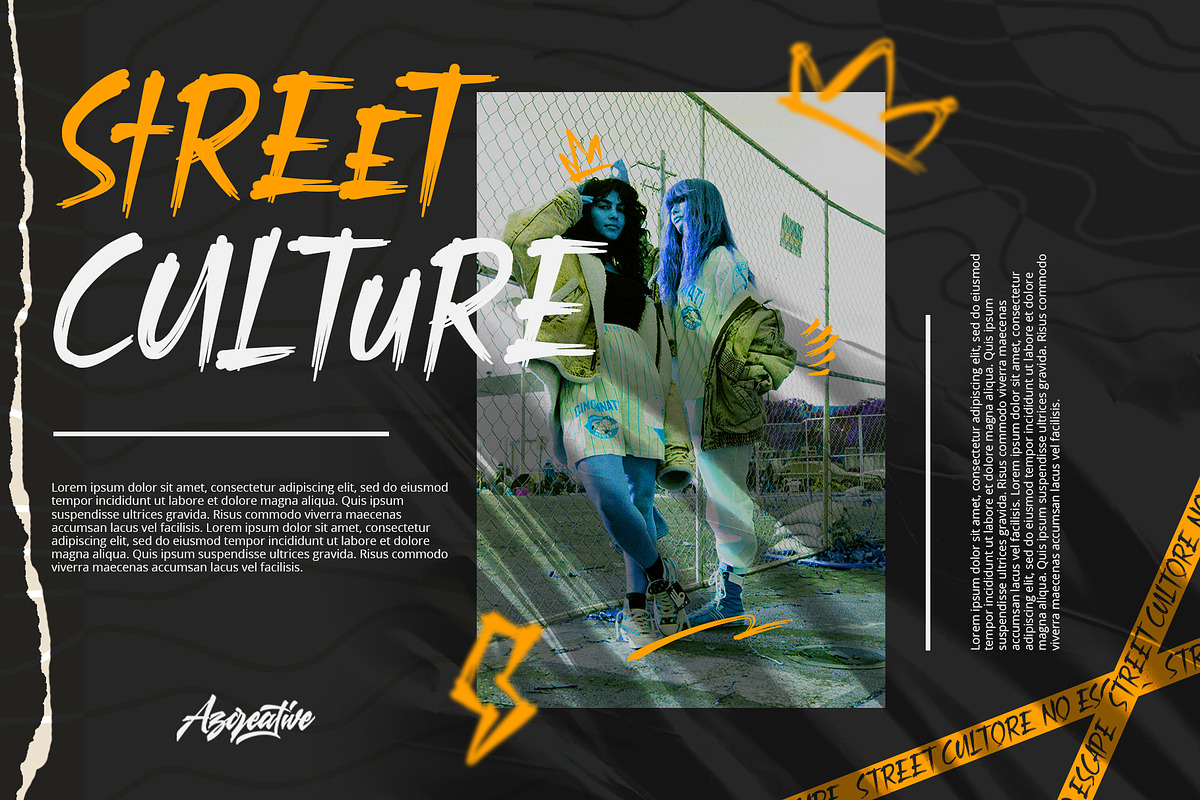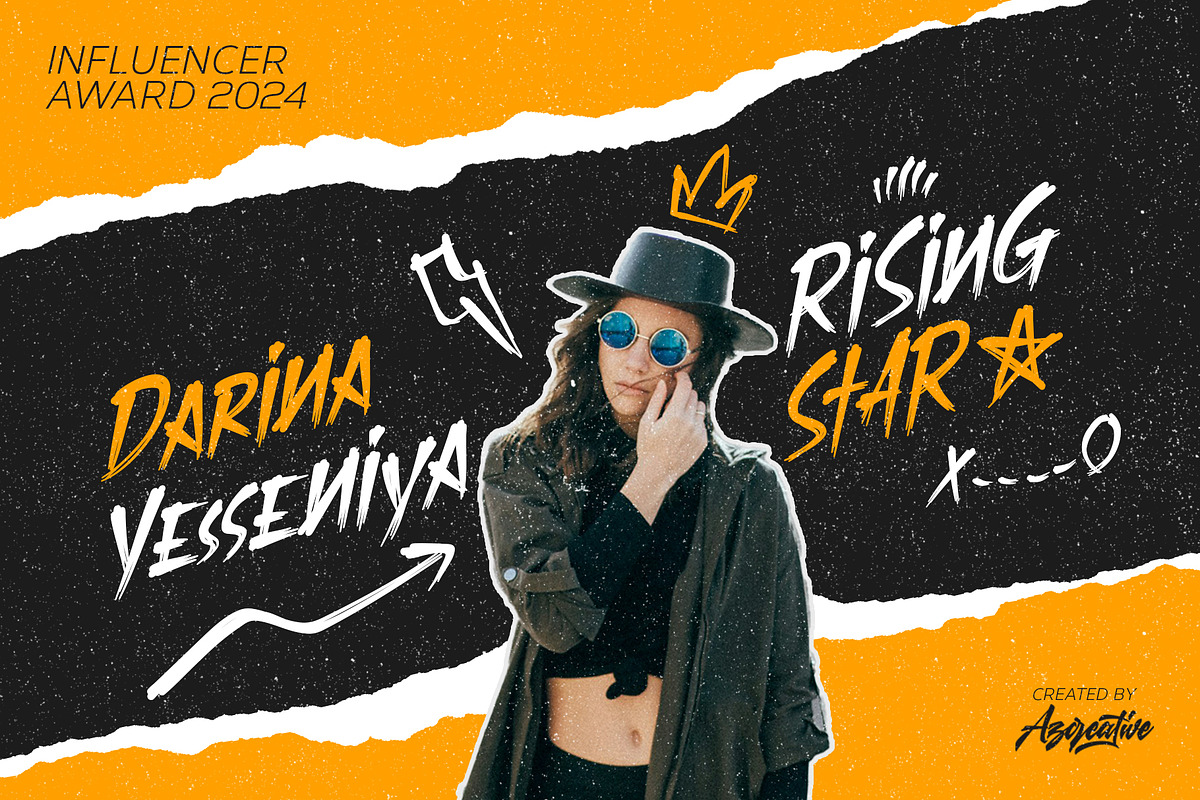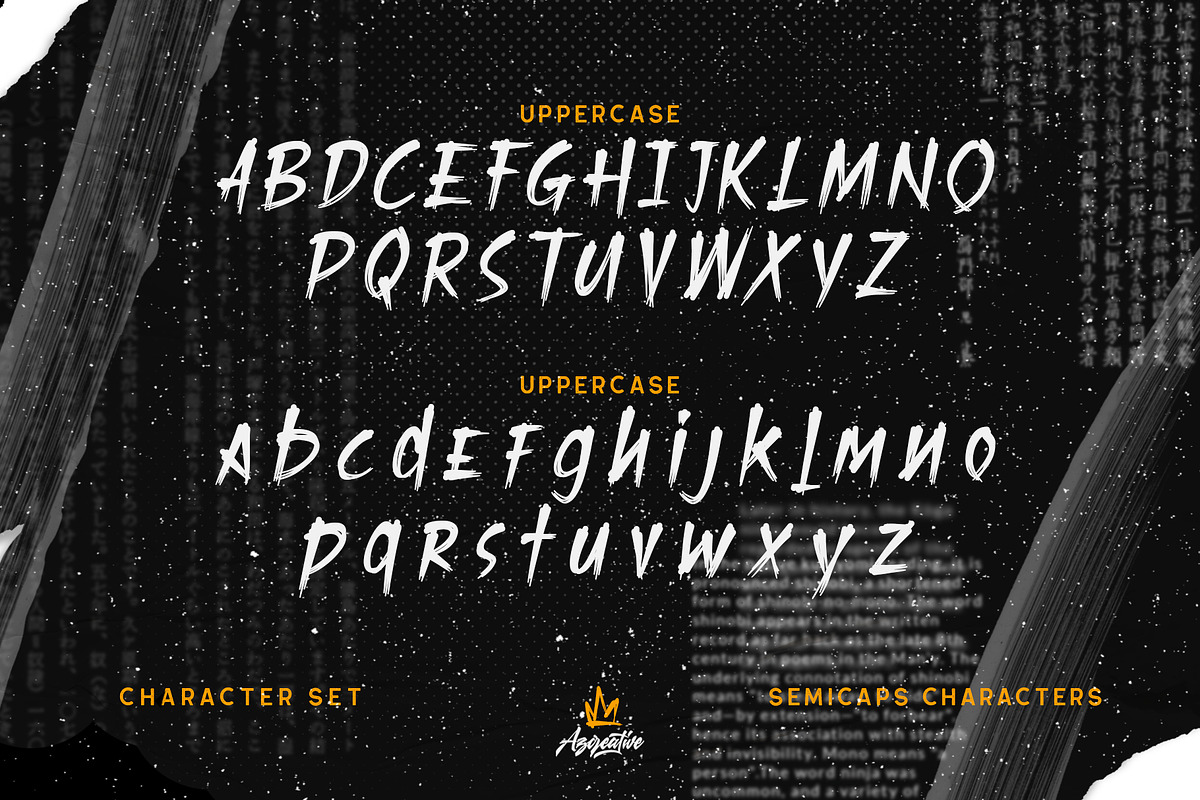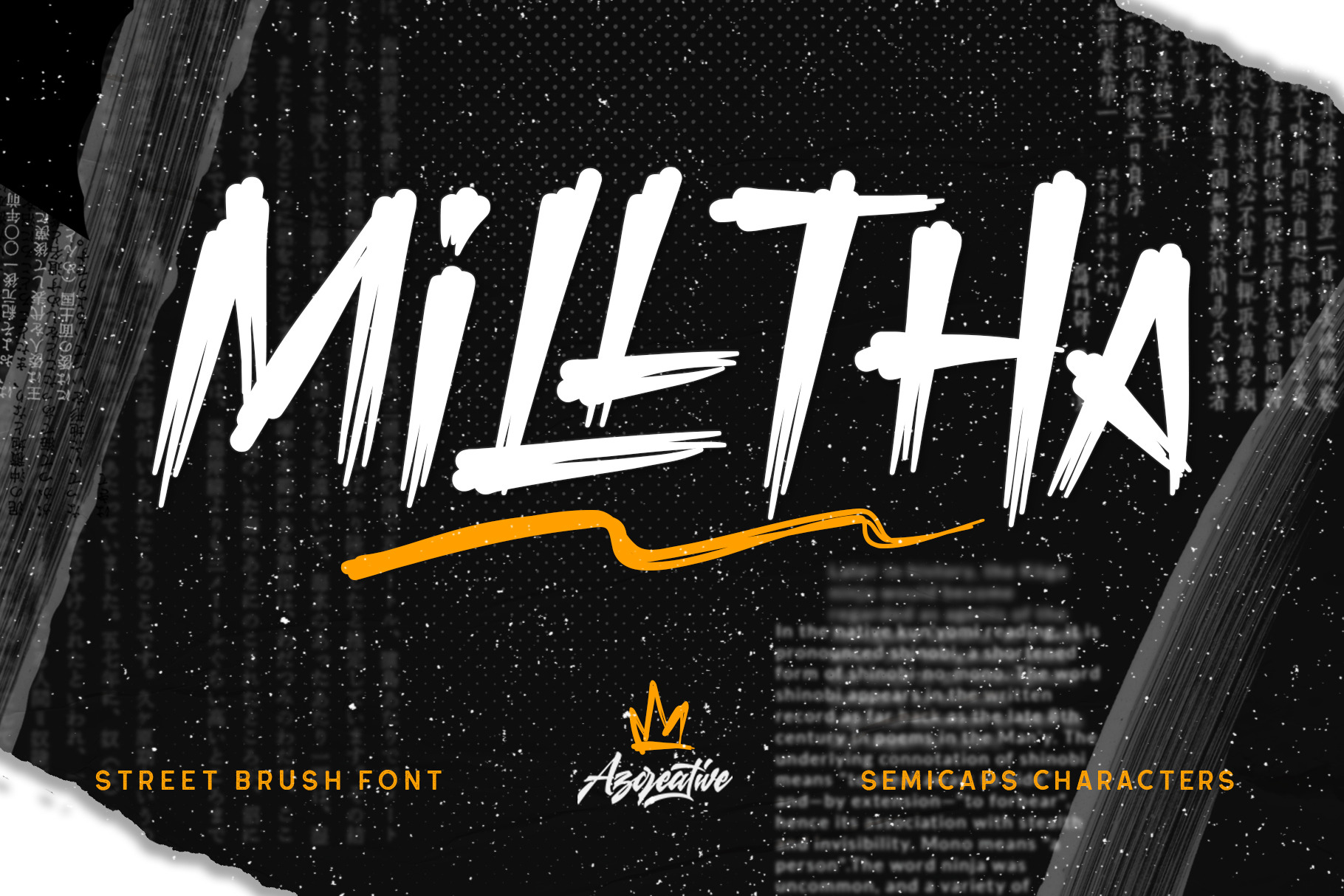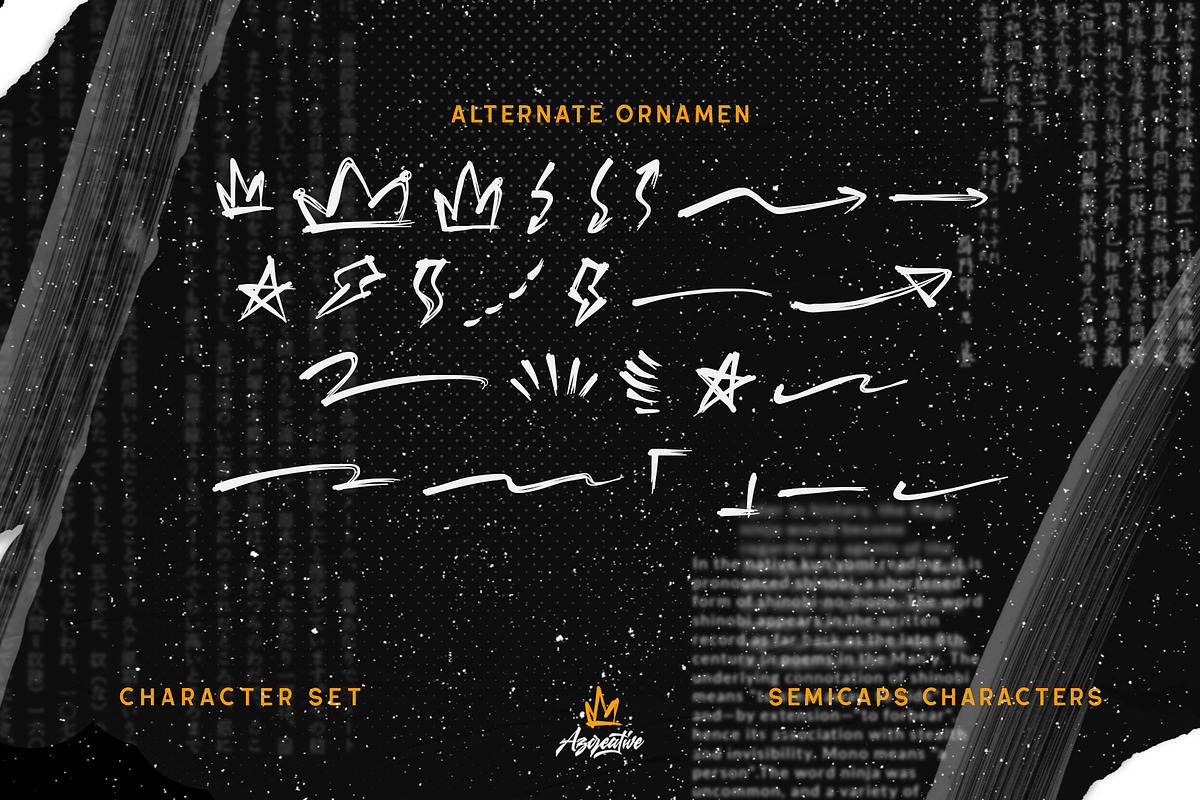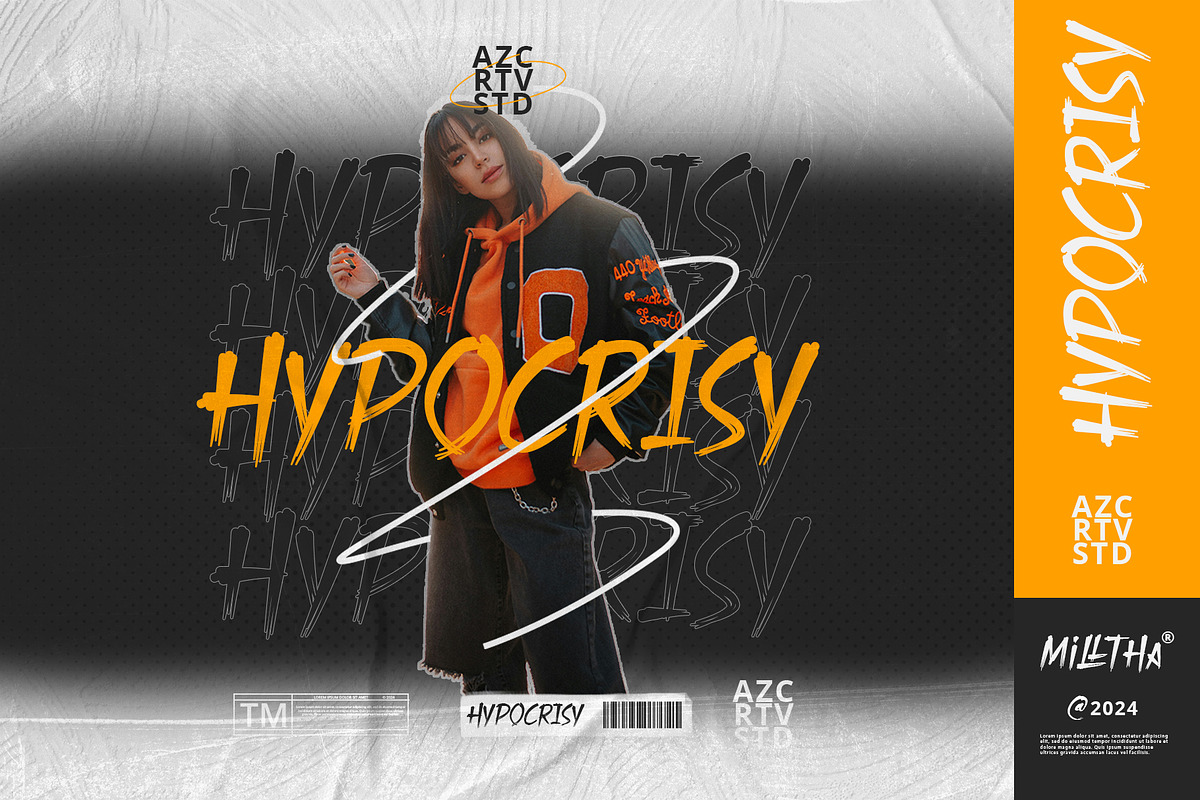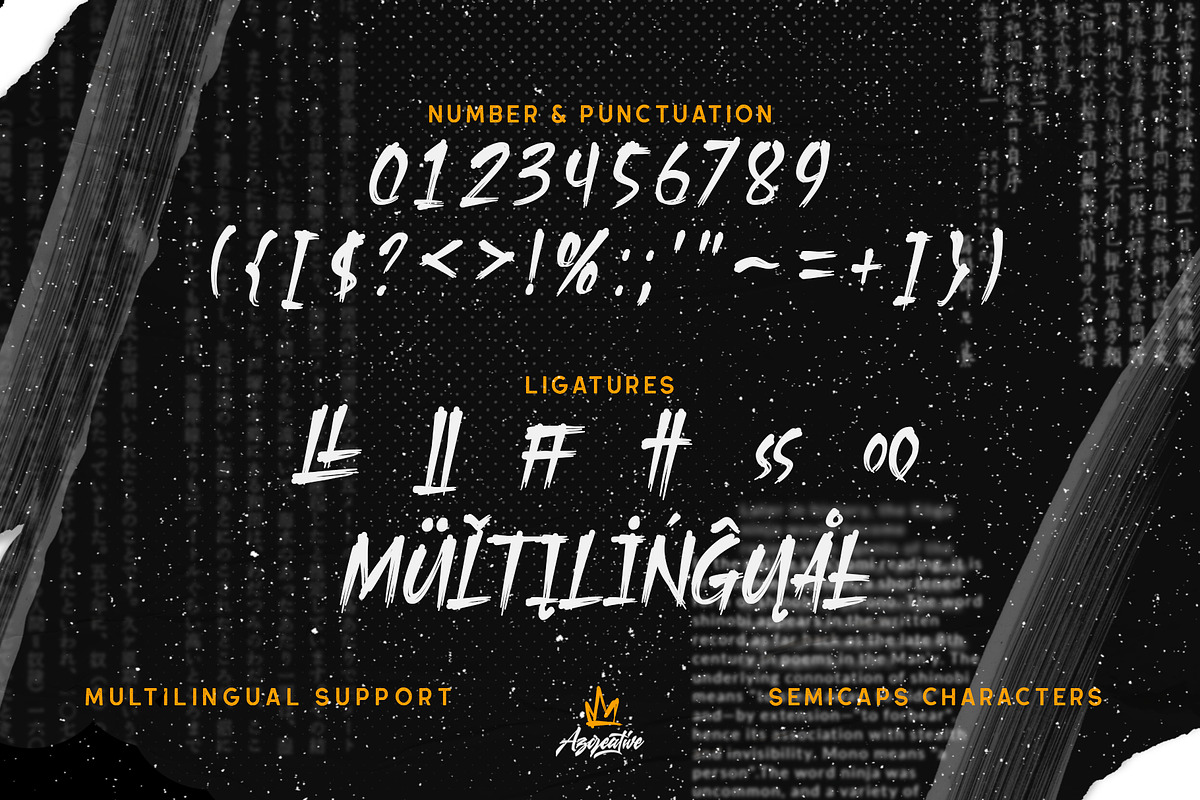
Milltha - Street Writing Font
Introducing Milltha: The Ultimate Street Writing Font
Elevate your designs with Milltha,the latest font masterpiece from Azcreative Studio. Perfectly embodying the raw and edgy vibe of street art, Milltha brings an authentic urban feel to any project. This font is meticulously crafted to capture the spirit of street writing, making it an ideal choice for those looking to add a bold, dynamic touch to their work.
- Uppercase Characters: Includes a full set of uppercase letters, each designed with a distinctive street art style.
- Semicaps Characters: Adds versatility with unique semicaps characters that blend seamlessly with the uppercase set.
- Numbers & Punctuation: Comprehensive set of numbers and punctuation marks to meet all your design needs.
- Ligatures: Features creative ligatures such as “LL”, “ff”, “ll”, “ss”, and “oo” for a more cohesive and natural text flow.
- Multilingual Support: Supports multiple languages, ensuring your message can be conveyed universally.
- Alternate Ornaments: Includes a variety of alternate ornaments like crowns, stars, and arrows to add extra flair to your designs.
-Street Art Inspired Projects: Bring the energy and vibrancy of street art to your posters, flyers, and digital artworks.
-Branding & Logos: Make a bold statement with logos and branding materials that stand out from the crowd.
-Merchandise: Enhance your apparel, accessories, and product designs with a touch of urban authenticity.
-Social Media Graphics: Create eye-catching social media posts that grab attention and engage your audience.
Why Choose Milltha? Milltha is not just a font; it’s an experience. Each letter is carefully designed to emulate the spontaneous and gritty essence of street writing, giving your designs an unparalleled edge. Whether you're working on a modern art project, a dynamic branding campaign, or simply want to inject some street-savvy style into your creations, Milltha is your go-to font.